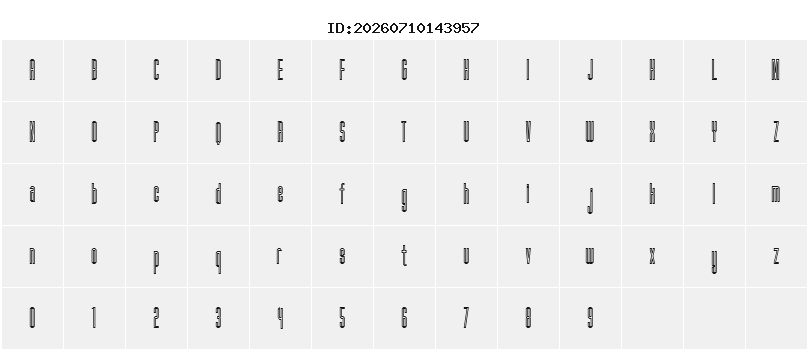
• Font Name: FanatiqueInline-Bold
• Full Font Name: FanatiqueInline-Bold
• PostScript Name: FanatiqueInline-Bold
About FanatiqueInline-Bold.ttf
FanatiqueInline-Bold.ttf is a modern, elegant sans-serif font designed for ultimate readability and visual harmony. Perfect for branding, headlines, web design, and print materials.